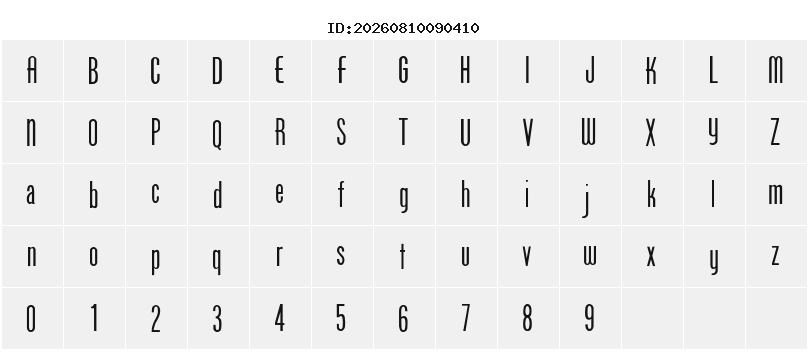
PCSunshoe Preview
• Font Name: PCSunshoe
• Full Font Name: PCSunshoe
About PCSunshoe.ttf
PCSunshoe.ttf is a modern, elegant sans-serif font designed for ultimate readability and visual harmony. Perfect for branding, headlines, web design, and print materials.